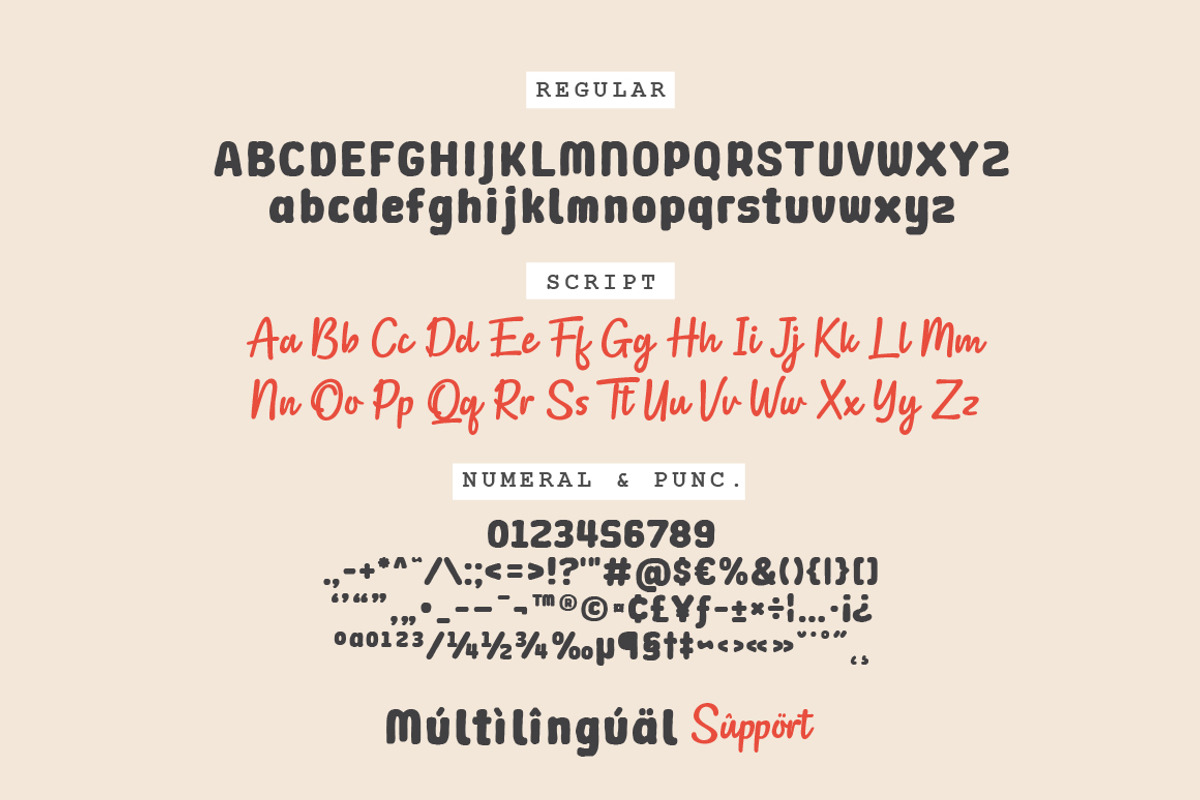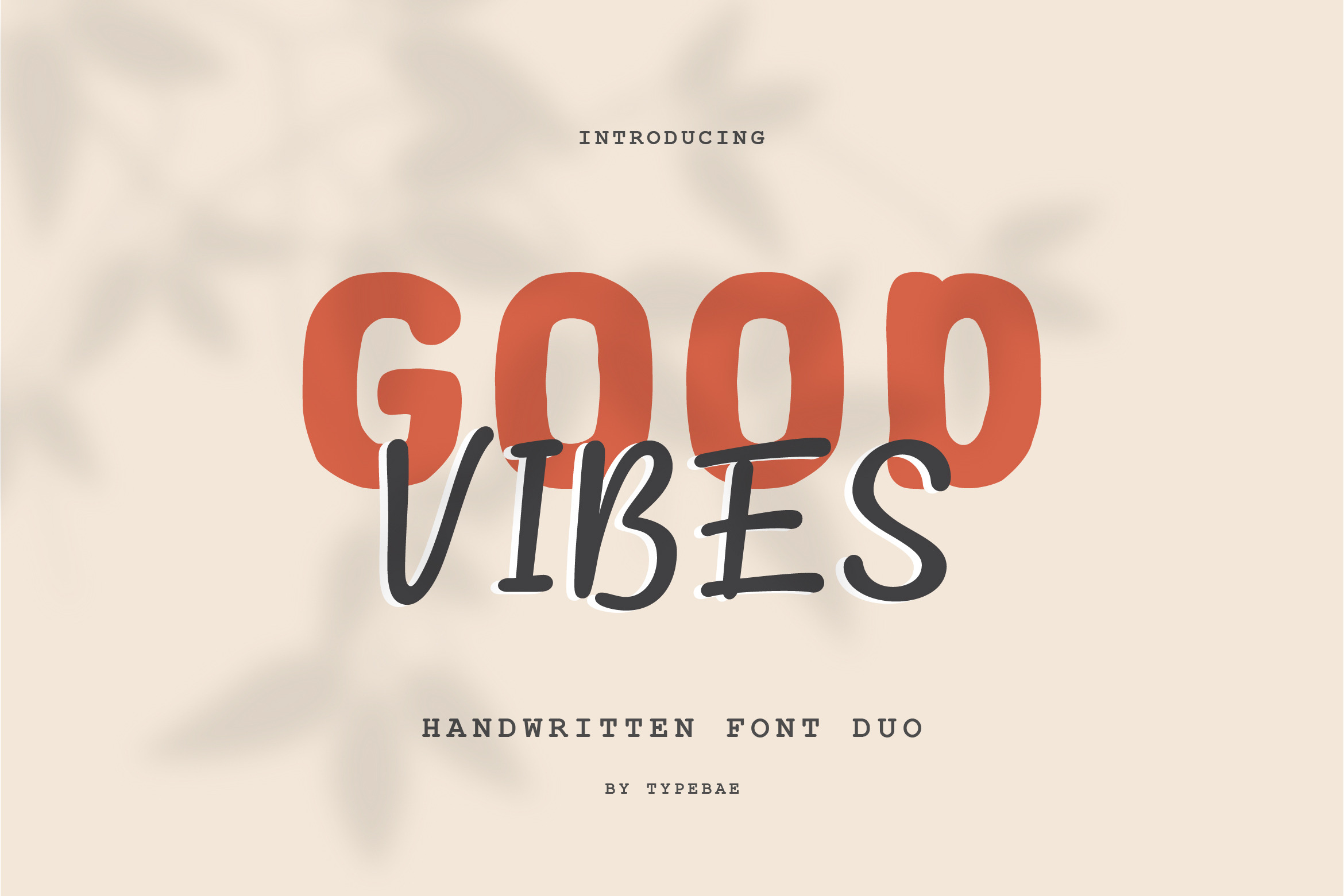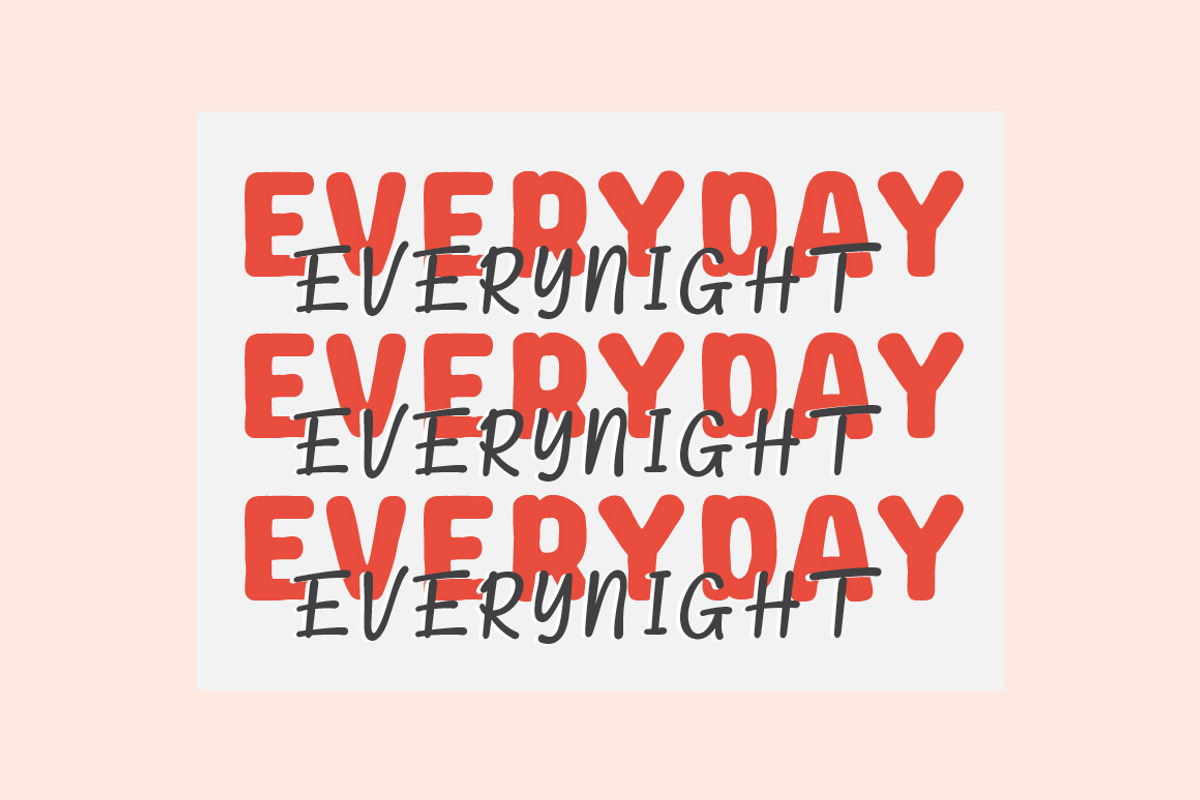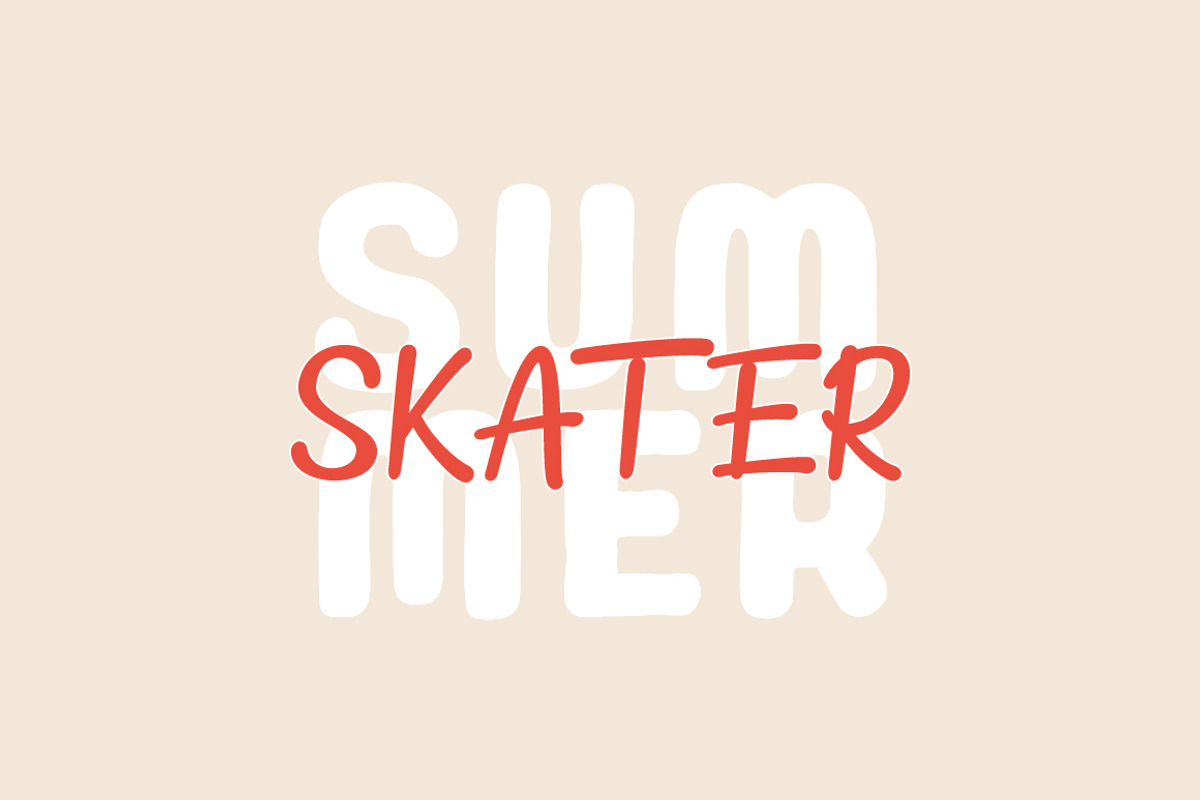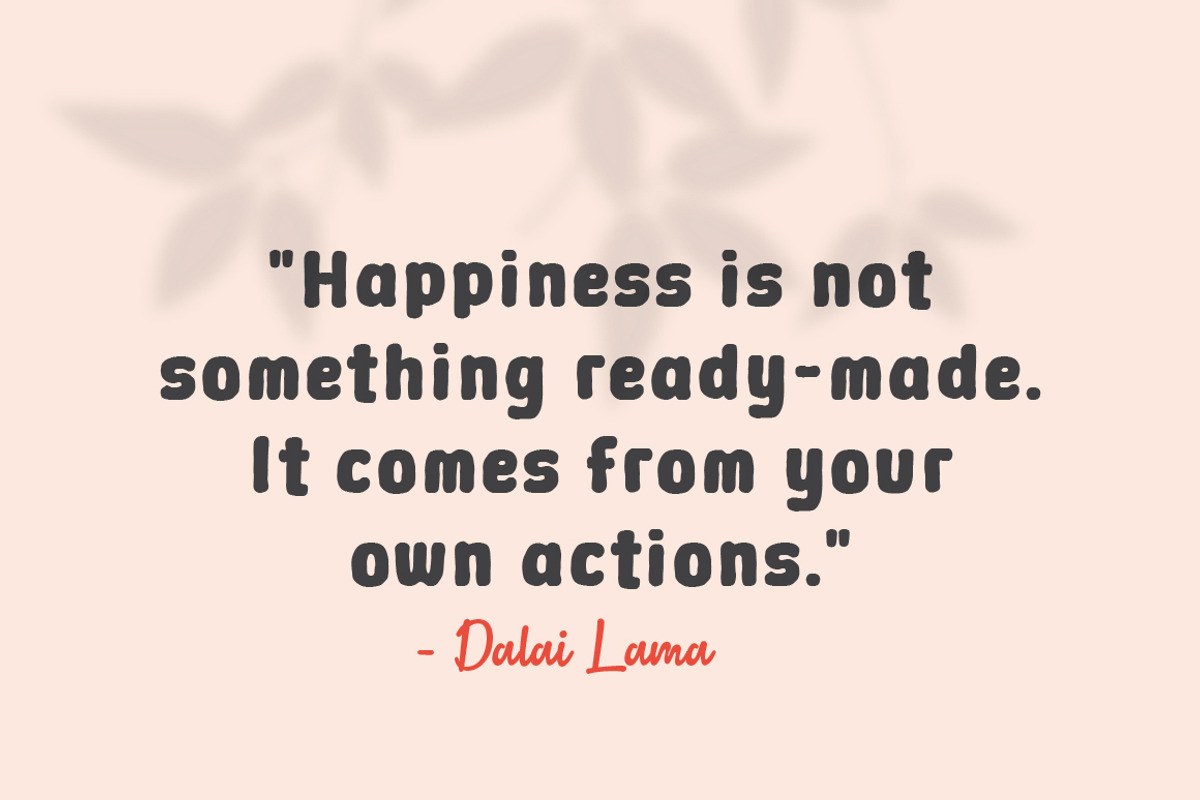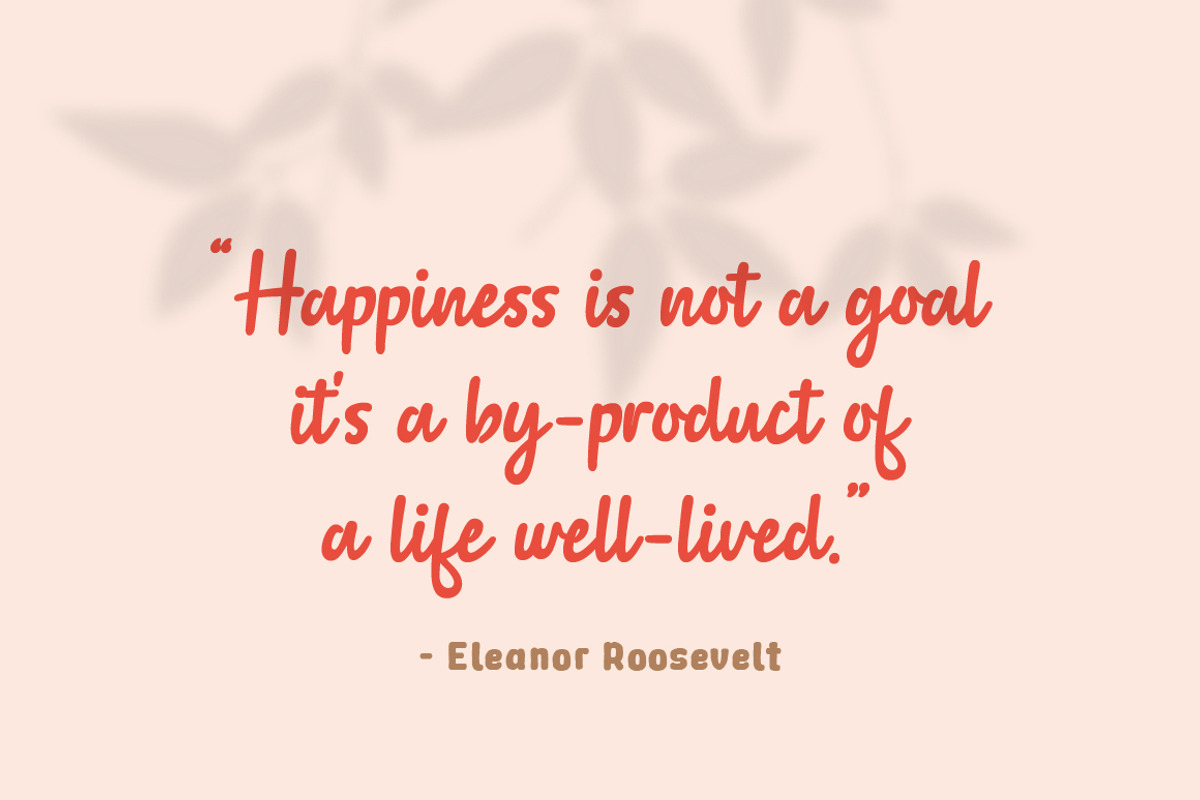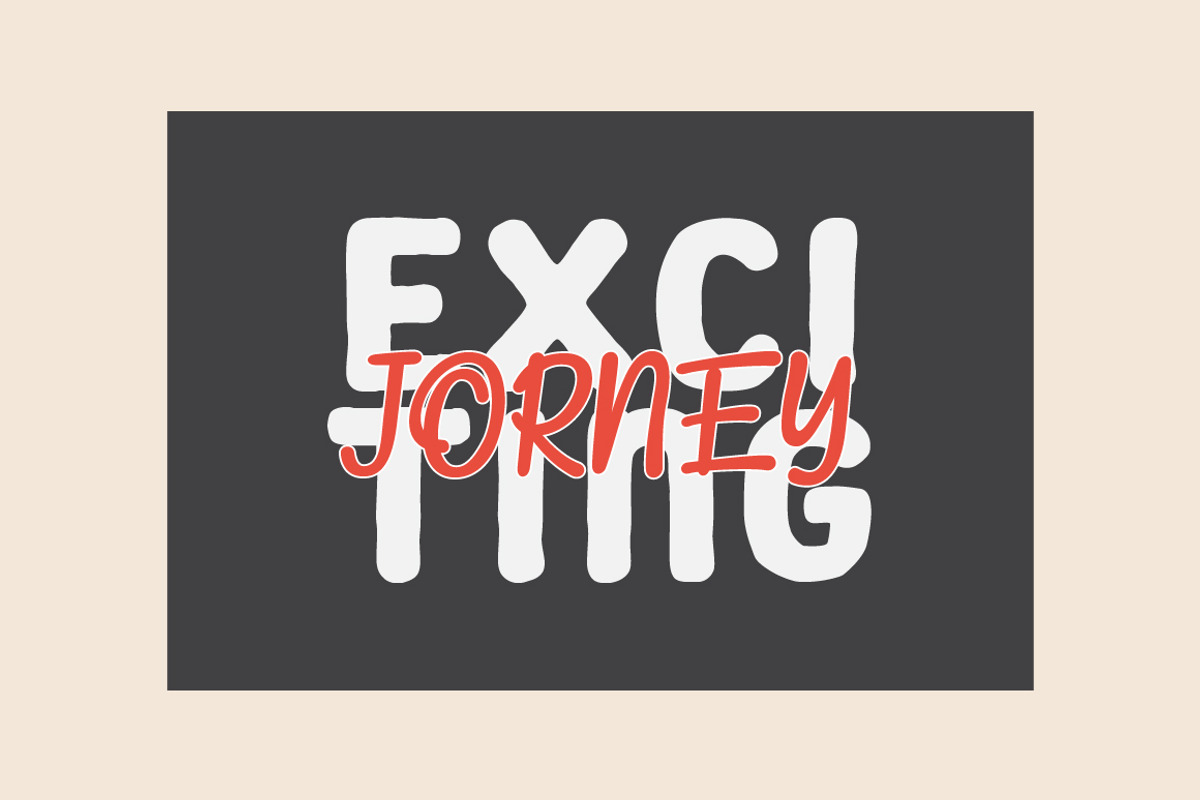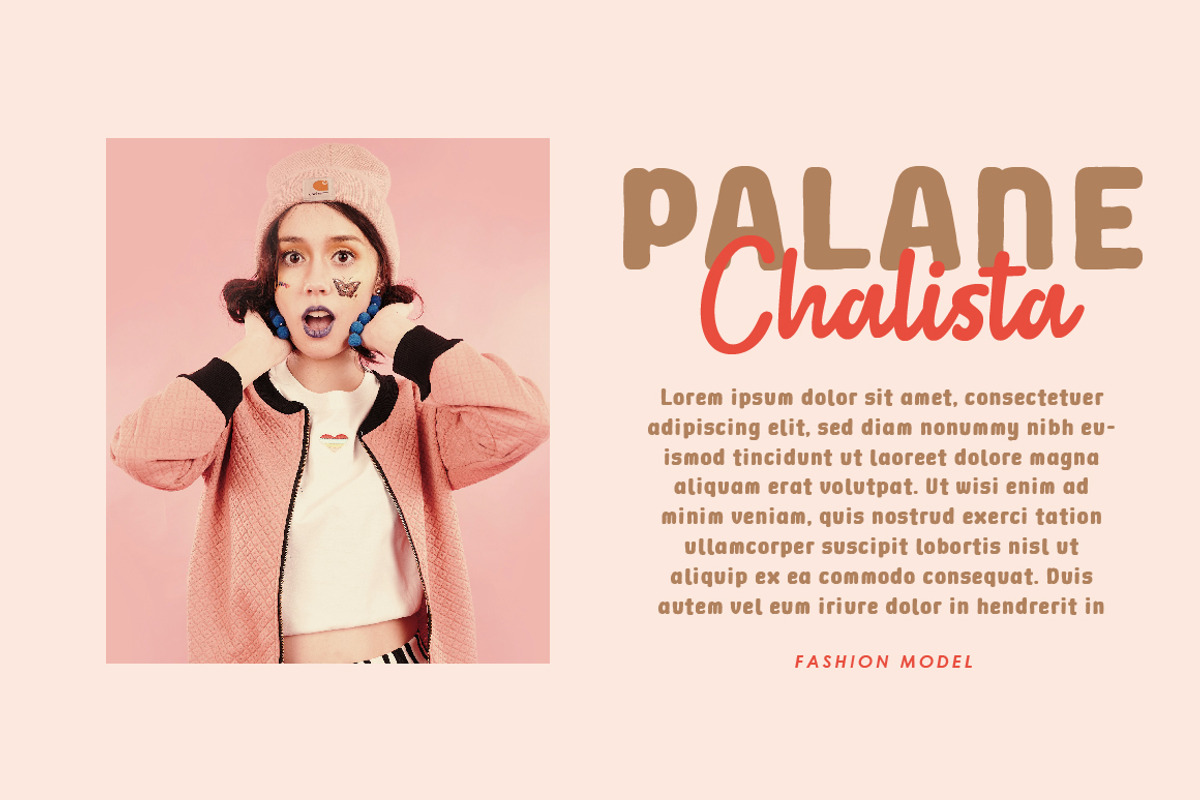
Good Vibes Font Duo
Good Vibes is a font duo that seamlessly blends a bold handwritten script with hand-drawn sans serif font. This combination creates a simple yet captivating style, perfect for adding personality and warmth to any design project. Good Vibes brings a touch of creativity and charm to the table.
Features: Ligature, Punctuation, Multilingual & PUA Encoded